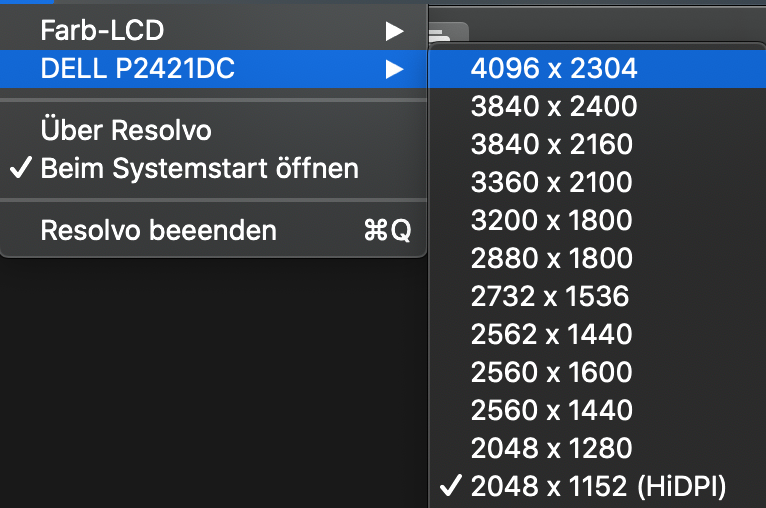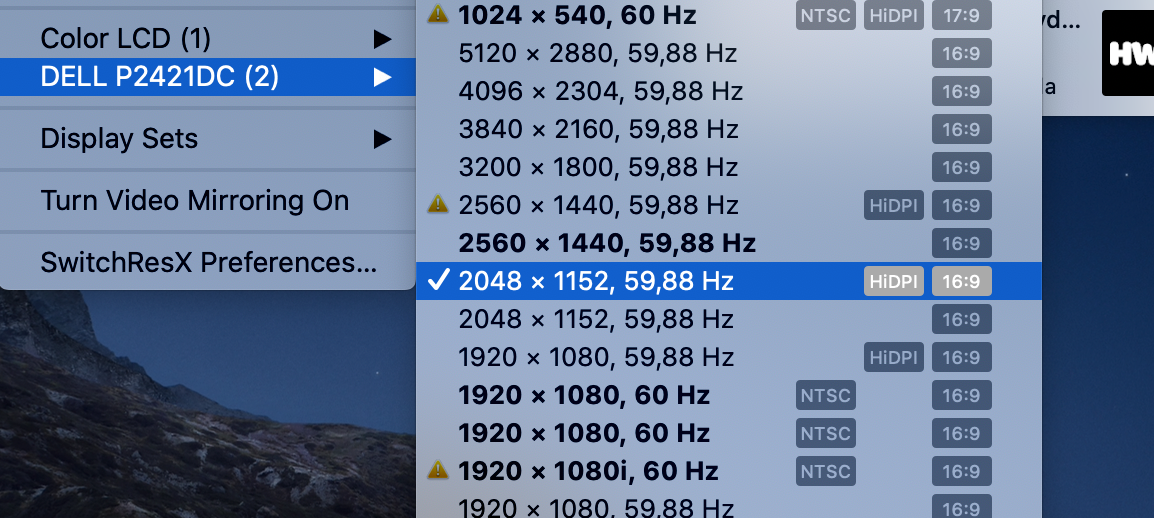
I run 720p x2 on 1080p monitor and it doesn’t heat up at all. You have my screenshot comparison above.
Yes, I lost quite a bit of screen real estate at the expense of more legible fonts and crisp UI rendering, but I adapted.
You may also find a sweet-spot at which everything looks nearly as sharp as true HiDPI. I run a 1440p (2560x1440) monitor at 2048x1152 doubled (so 4096 x 2304). This means that OS X scales up everything x2 to the back buffer, then the GPU scales down everything x0.625 to the screen. Curiously, even though that involves fractional scaling, Apple's magic doesn't make things blurry.
The trick is to use your monitor's pixels to oversample what you are trying to render, but without losing too much screen real estate.
I have read all posts in this topic. I bought Dell P2421DC (USB-C, 2K) two weeks ago. I am planning to use that monitor with Windows machine, MBP 2017 13'' and Raspberry Pi 4. There is no problem with Windows and Linux but i have problems with MacOS.
But when I connected to Macbook I got a really bad image at 2560x1440 resolution. So, I am tried scaled resolutions tool and I still can't use hidpi at higher resolutions. 1920x1080 is the highest resolution I can use with hidpi. At 1920x1080 resolution, the image is better, but the fonts look a little bad. 1920x1080 is a sufficient resolution for me, but even at this resolution, there are problems with fonts.
The 1600x900 HIDPI resolution fonts and the display are good, but the resolution is very low, making it very useless. Shouldn't I be able to get a good display at least in 1080p on this monitor? 2K monitor insufficient for Macbook?
I do not want to go up to 4k resolution because I use it on other systems. Tomorrow is the last day to refund the monitor, I have to make a decision, so I'm looking for answers to the following questions:
1) My monitor's PPI value is 123. Somewhere I read that a good result can be obtained if the ppi value is close to 110 or 220. So if I refund this monitor and buy a Dell U2720DC or P2720DC, will there be any improvement? (Dell U2720 has 109 PPI scloser to 110 ppi)
2) Is there any way I can use this monitor in 1080p resolution with HIDPI?
3) If someone is successful with Dell 24 or 27 inches, can someone give a model suggestion?
FWIW I’ve managed to track down the cause of the fuzzy text problem and the solution for poor text rendering on non-Retina and non-UHD monitors.
After much searching, encountering much nonsense (e.g. Apple renders fonts so perfectly they only look good on Retina screens etc etc) I finally found the solution - kudos to the serious Geek who figured out how to solve it (links below).
Each individual monitor has a configuration file.
They are organised by manufacturer (folders) and model (plist files without plist extension) located here:
I don’t know if these are generated by Apple or the display manufacturers.
For various reasons these no longer play well from Mojave onwards.
To get clean text the display must be in Apple’s “HiDPI” mode for the selected resolution.
And there are gotchas: to get a nice 1920 x 1080 resolution, it needs to be configured as double that, 3840 x 2160.
I have same monitor model and I reached the best result with 1600x900 HIDPI. Any chance to share screenshots for 1920x1080? Am I too paranoid? Or have I done something missing?
Hi folks!
I have read all posts in this topic. I bought Dell P2421DC (USB-C, 2K) two weeks ago. I am planning to use that monitor with Windows machine, MBP 2017 13'' and Raspberry Pi 4. There is no problem with Windows and Linux but i have problems with MacOS.
But when I connected to Macbook I got a really bad image at 2560x1440 resolution. So, I am tried scaled resolutions tool and I still can't use hidpi at higher resolutions. 1920x1080 is the highest resolution I can use with hidpi. At 1920x1080 resolution, the image is better, but the fonts look a little bad. 1920x1080 is a sufficient resolution for me, but even at this resolution, there are problems with fonts.
The 1600x900 HIDPI resolution fonts and the display are good, but the resolution is very low, making it very useless. Shouldn't I be able to get a good display at least in 1080p on this monitor? 2K monitor insufficient for Macbook?
I do not want to go up to 4k resolution because I use it on other systems. Tomorrow is the last day to refund the monitor, I have to make a decision, so I'm looking for answers to the following questions:
1) My monitor's PPI value is 123. Somewhere I read that a good result can be obtained if the ppi value is close to 110 or 220. So if I refund this monitor and buy a Dell U2720DC or P2720DC, will there be any improvement? (Dell U2720 has 109 PPI scloser to 110 ppi)
If they've disabled supersampling on non-Apple monitors then definitely not. Also, seems to be many people saying that UI contrast is lower and the font size used for many OS elements is smaller. None of which make for a positive reason to upgrade. The only push factor would be if they've managed to squeeze a bit more sharpness out of grayscale-AA. Personally, I'll probably skip Big Sur.
That is a shame. I'll probably not update either in that case.